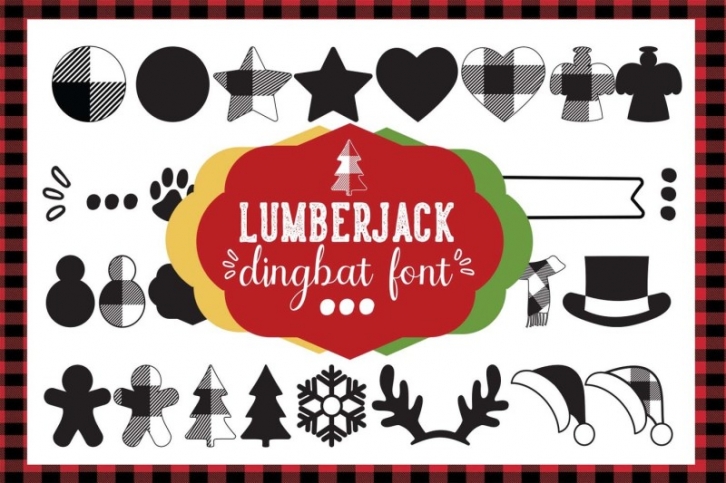
Lumberjack dingbat is a dingbat font on Christmas elements. It includes 35 characters, has smooth elements and elements with pattern that simulate lumberjack pictures that allow you to superimpose the elements to achieve this effect. You can achieve many combinations.